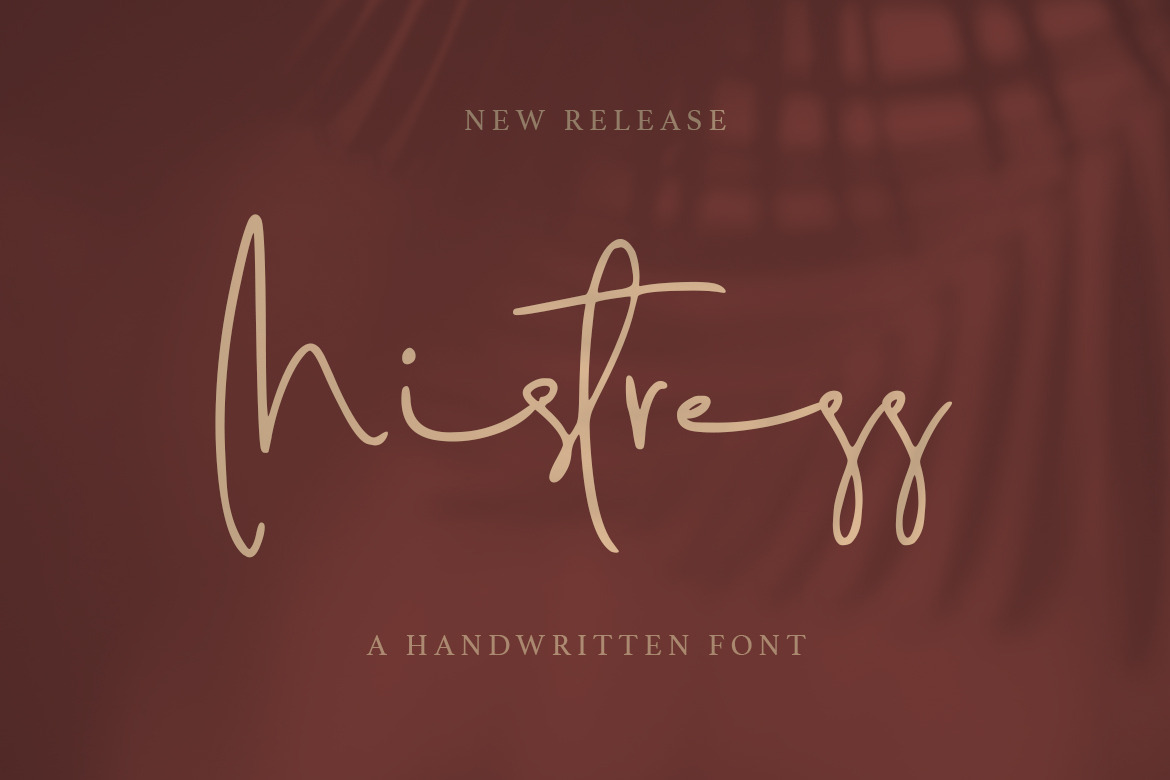
Mistress - a Handwritten Font
Mistress is perfect for many different projects such as logos & branding, invitation, stationery, wedding designs, social media posts, advertisements, product packaging, product designs, label, photography, watermark, special events, or anything.